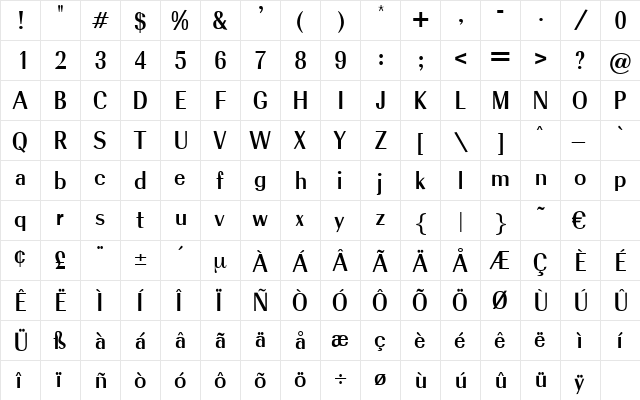
Trabant Regular
Design Context for Trabant Typeface
Trabant takes a measured approach to typography — its balanced proportions and neutral character make it a reliable workhorse for both digital and print work.